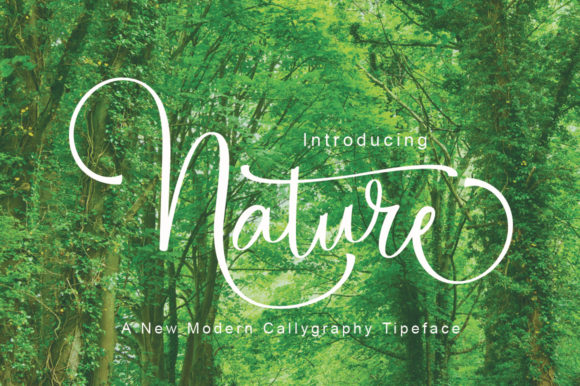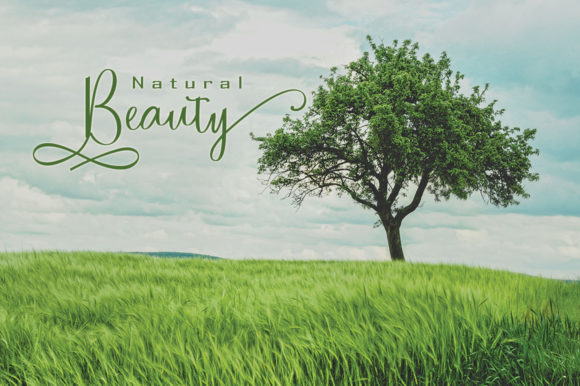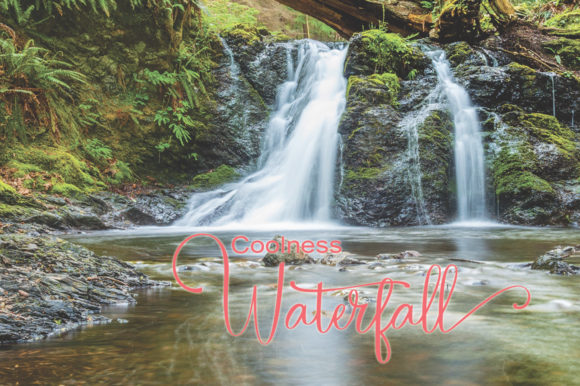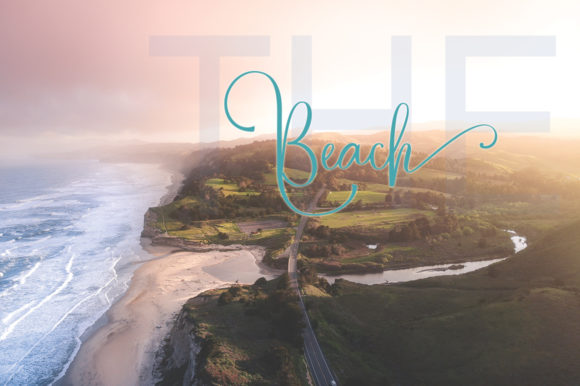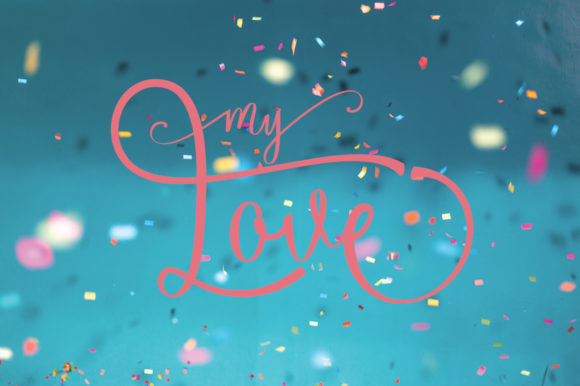
HomeScript FontsNature Font Script Fonts Nature Font FacebookXPinterestWhatsApp Nature Font Poster 2 Nature Font Poster 3 Nature Font Poster 4 Nature Font Poster 5 About Nature Font Nature is a lovely and natural script font. Get inspired with its swashy style. DOWNLOAD ON CREATIVE FABRICAThis font is sold and delivered by Creative Fabrica. Font Canyon may earn a commission if you buy through this link. People also explored Sunflower Font Australian Signature Font Type Prodigy Seilla Script Font Silkyline Font Hyperdrive Font Wild Brush Font Challenger Wilkinson Sour Candy Font 300 0 TagsNature Font Previous articleParanoid FontNext articleCentral Point Font LEAVE A REPLY Cancel reply Comment: Please enter your comment! Name:* Please enter your name here Email:* You have entered an incorrect email address! Please enter your email address here Website: Save my name, email, and website in this browser for the next time I comment. Personal Use Free Fake Receipt Personal Use Free Read more about this font Cottage Personal Use Free Read more about this font Pretender Personal Use Free Read more about this font Huntry Personal Use Free Read more about this font BLOG How to Cut Any Font on Cricut: Convert a Font to SVG (Free) Turn any font into a clean SVG so it cuts crisp on Cricut - a quick 3-step workflow using a free font-to-SVG tool. Free vs Paid Fonts: Why Investing in Premium Fonts Is Worth It Fonts That Capture the Spirit of New York City How to Install and Use Fonts on Windows, macOS, and Web Projects